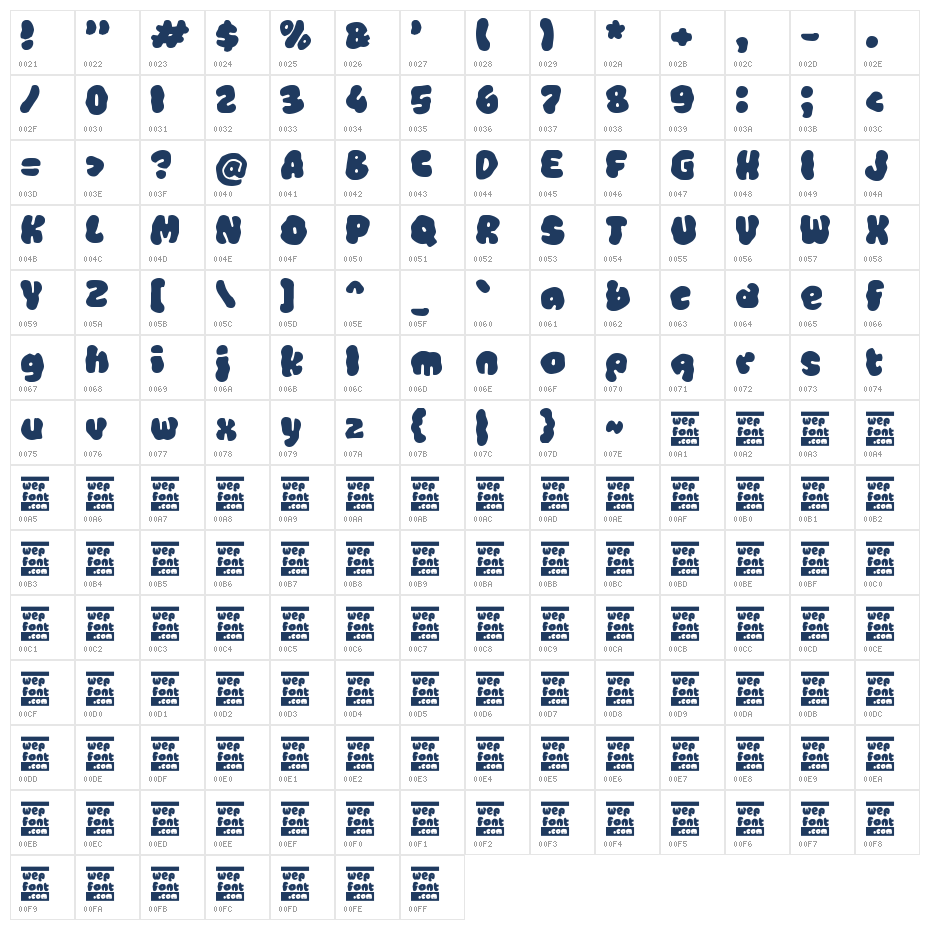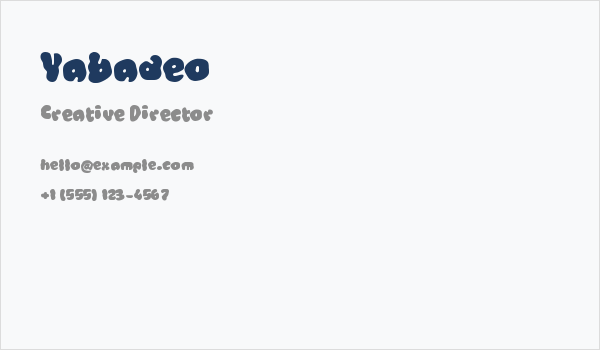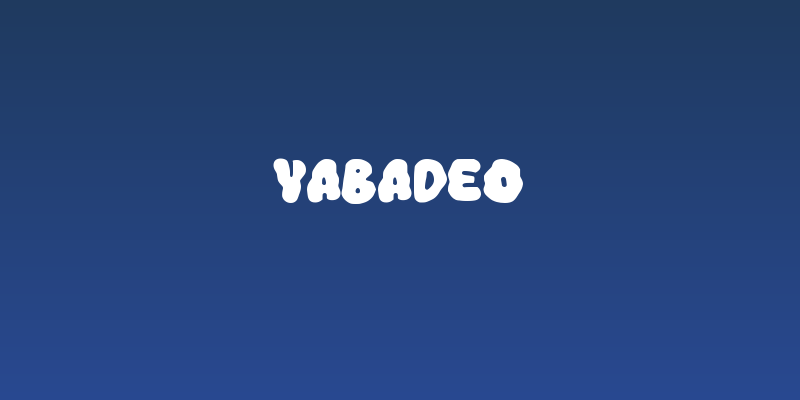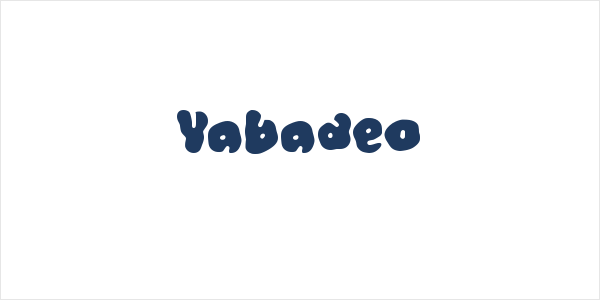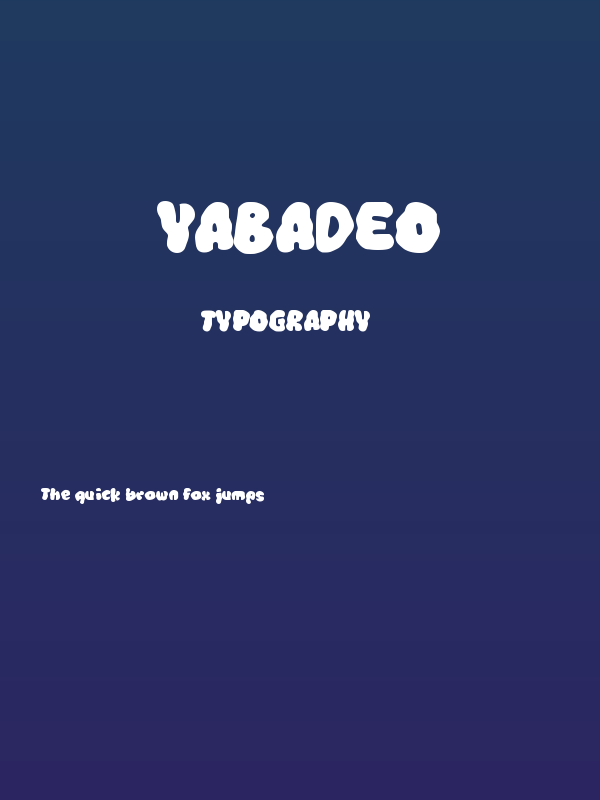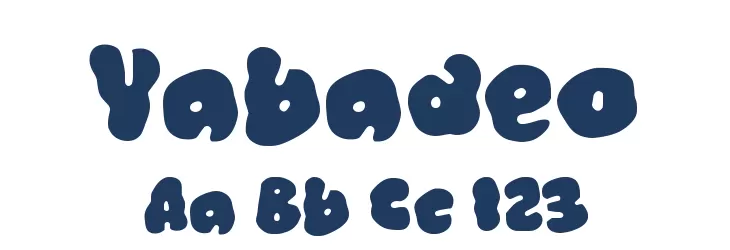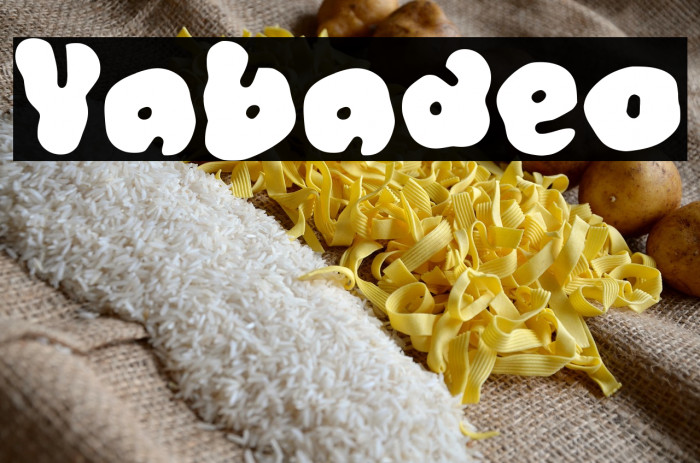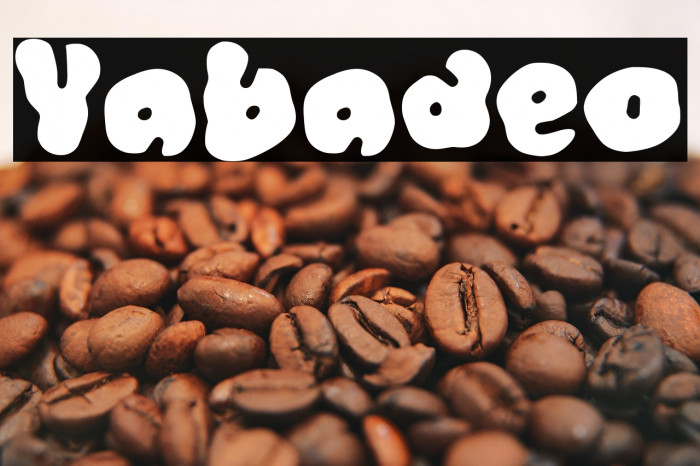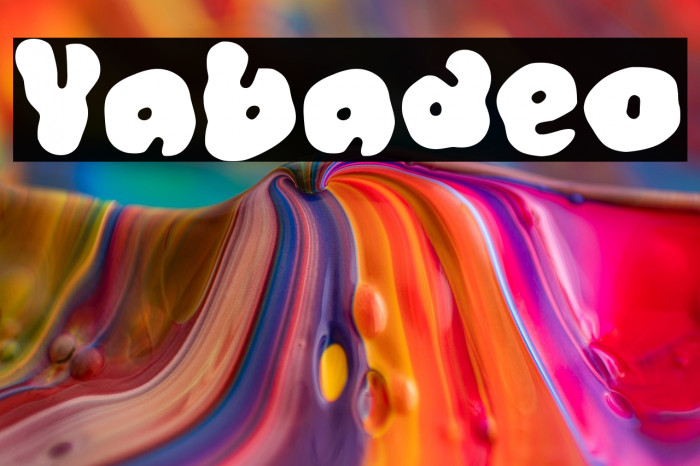
Yabadeo Font
Yabadeo Description
A playful, chunky, rounded display font with a bubbly, informal style.
| Overall Style | Playful, Bold, Rounded |
| Use Case | Headlines, Posters, Logos, Packaging |